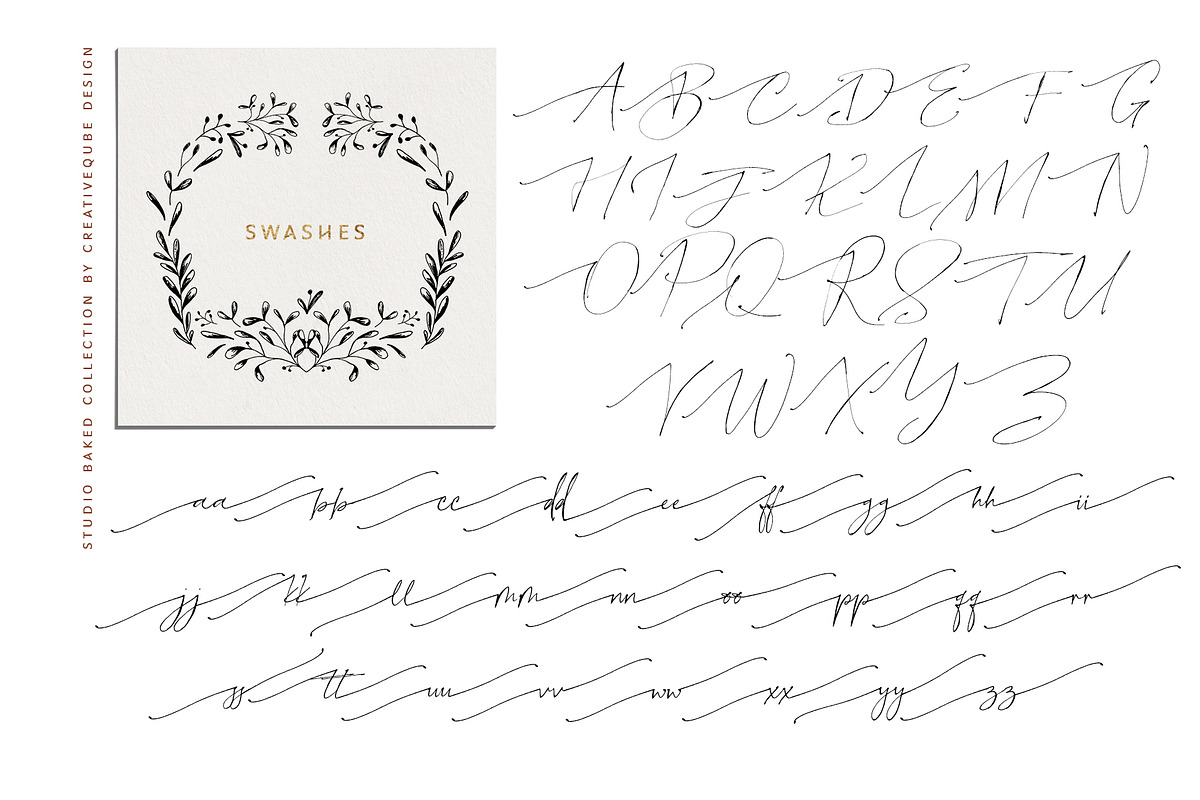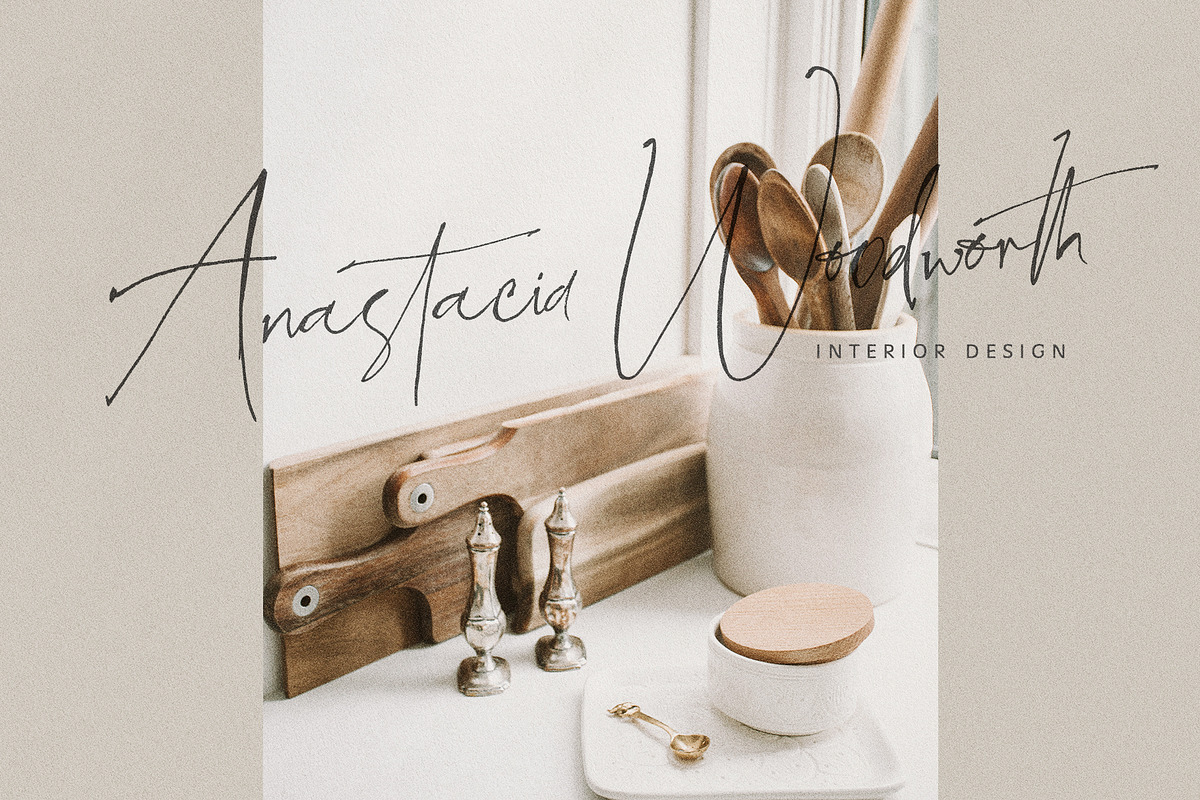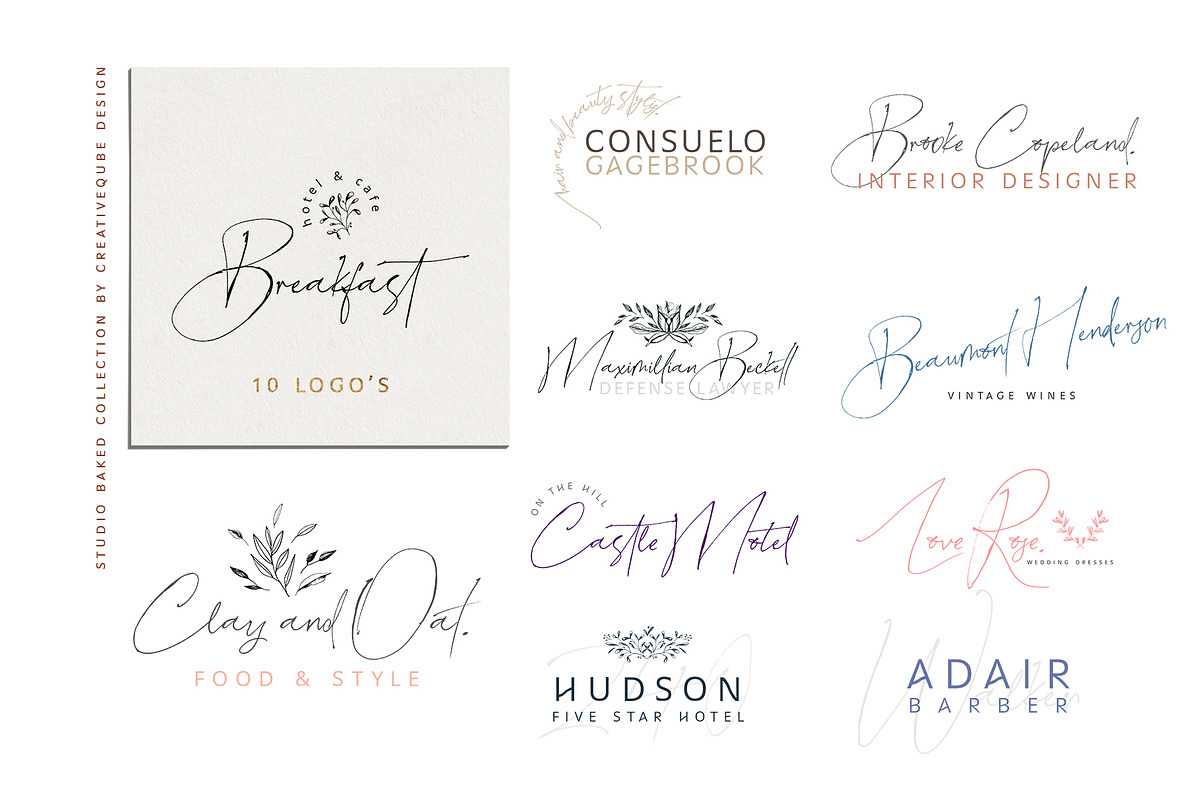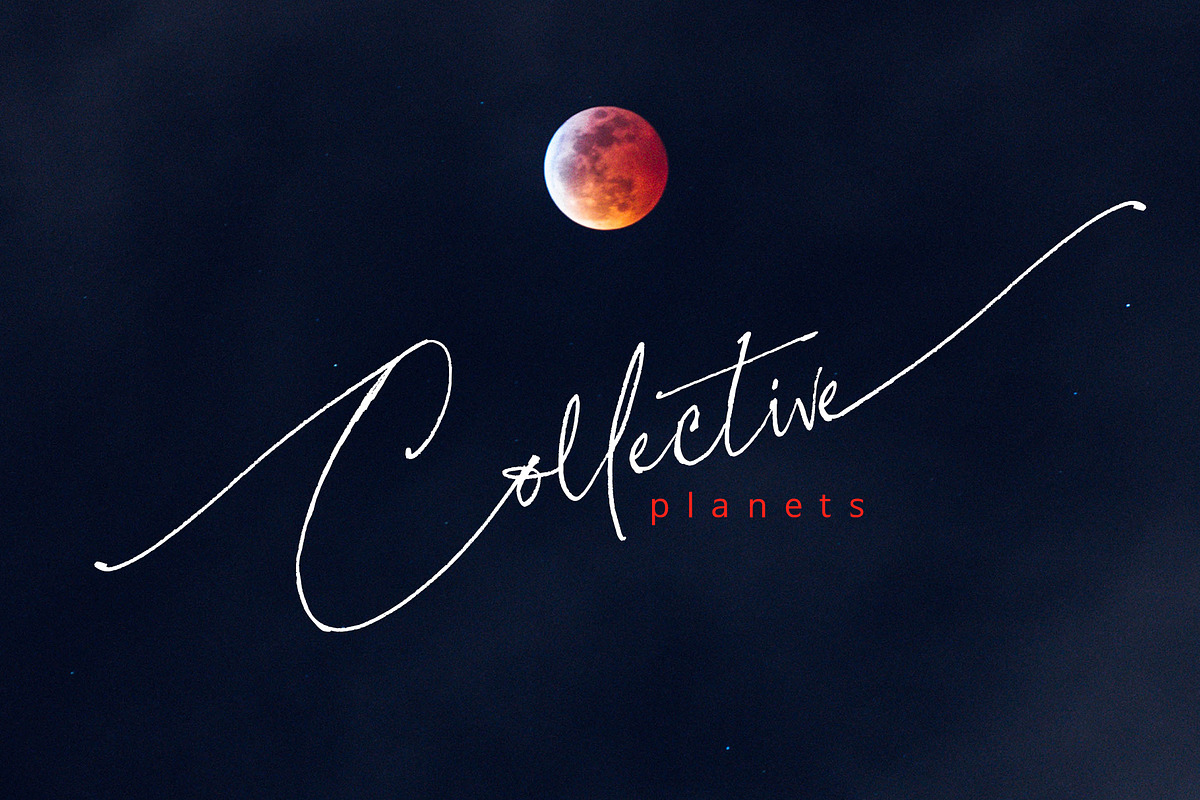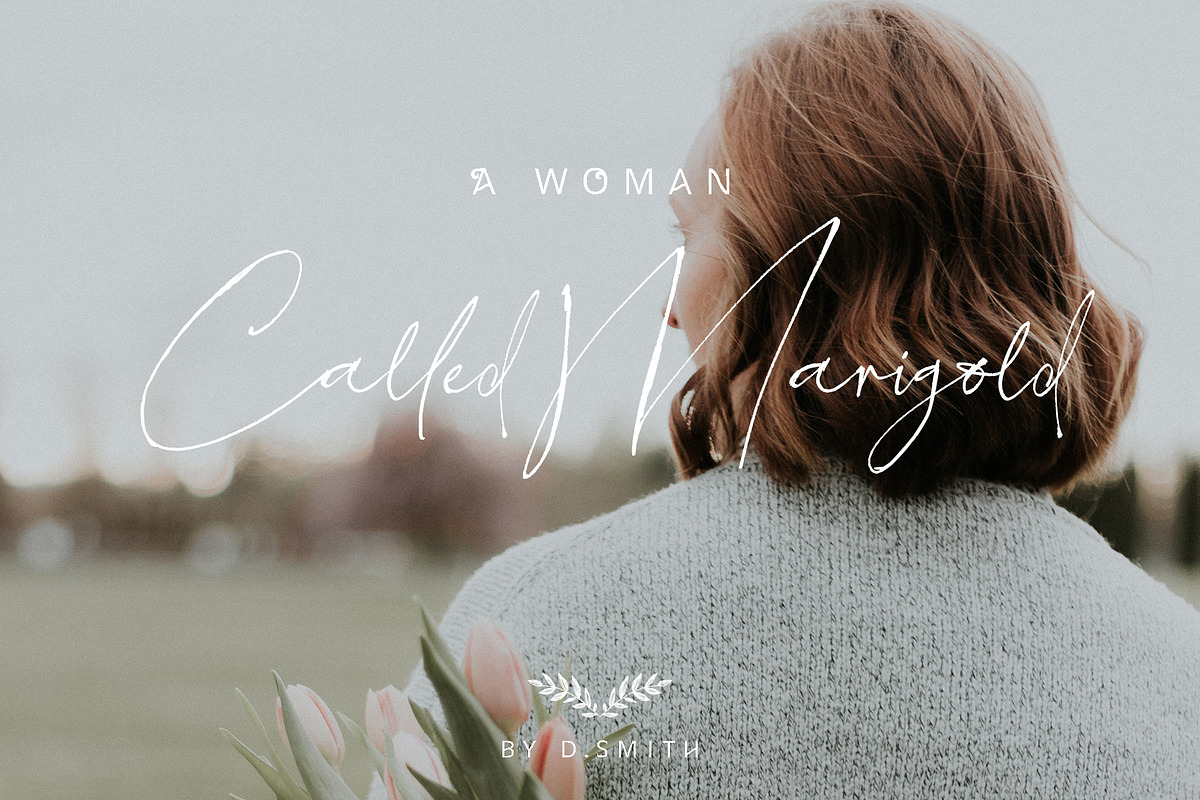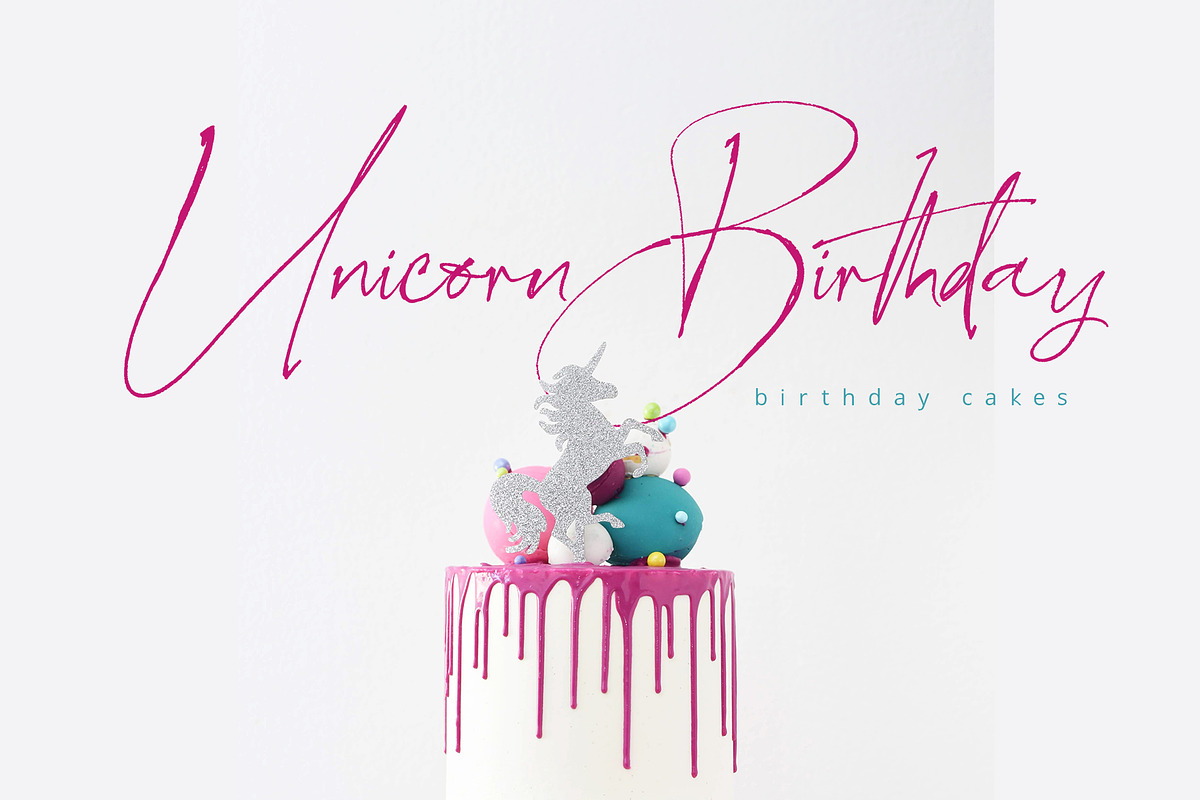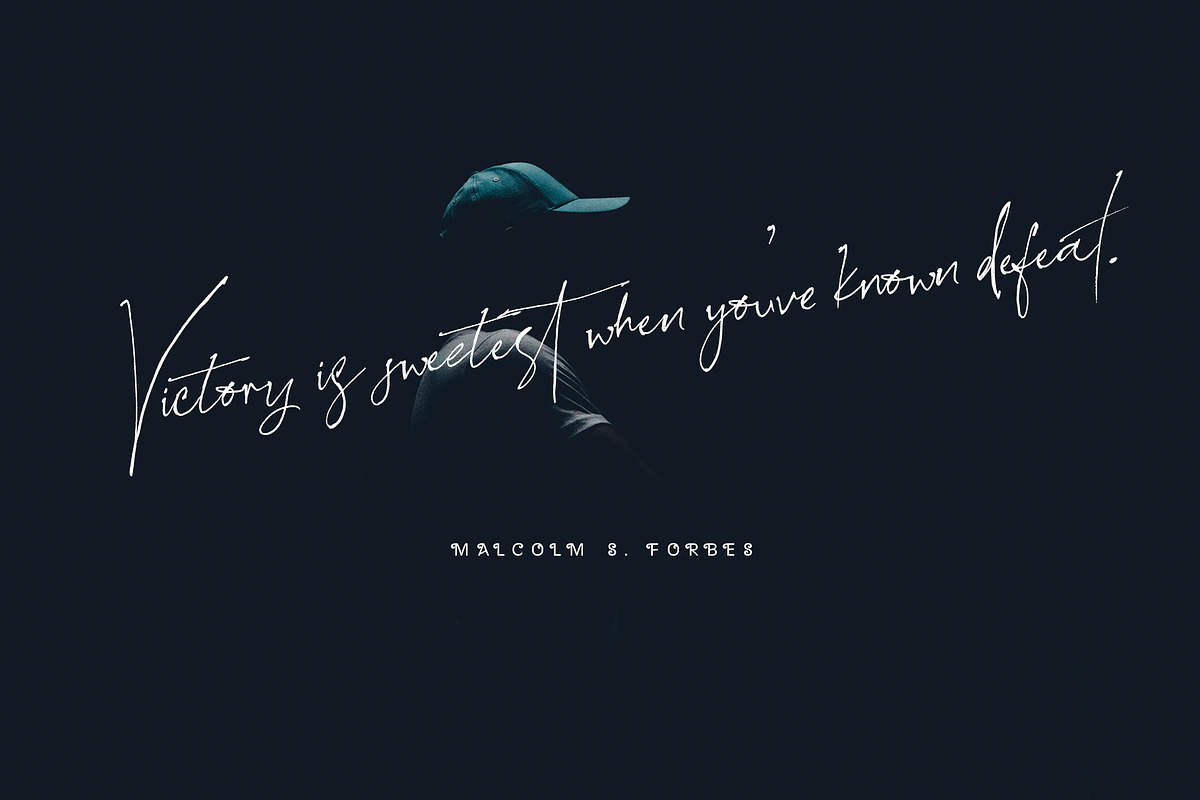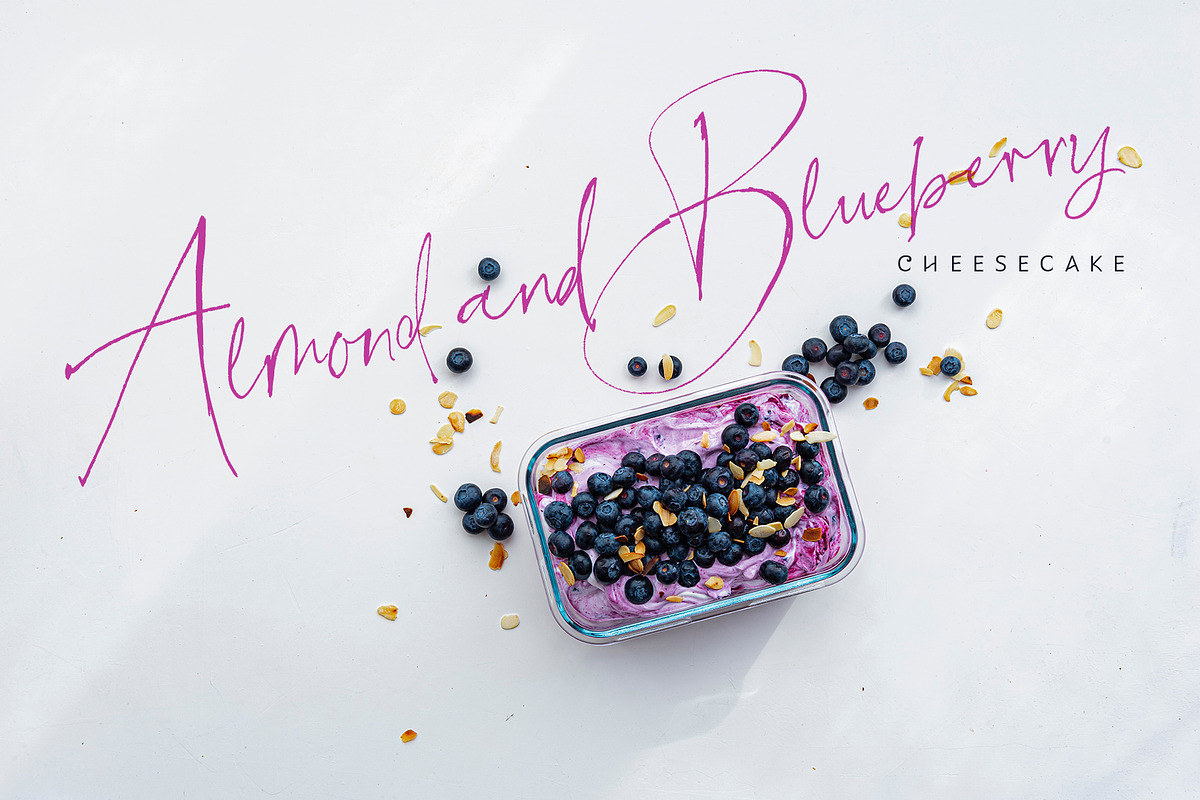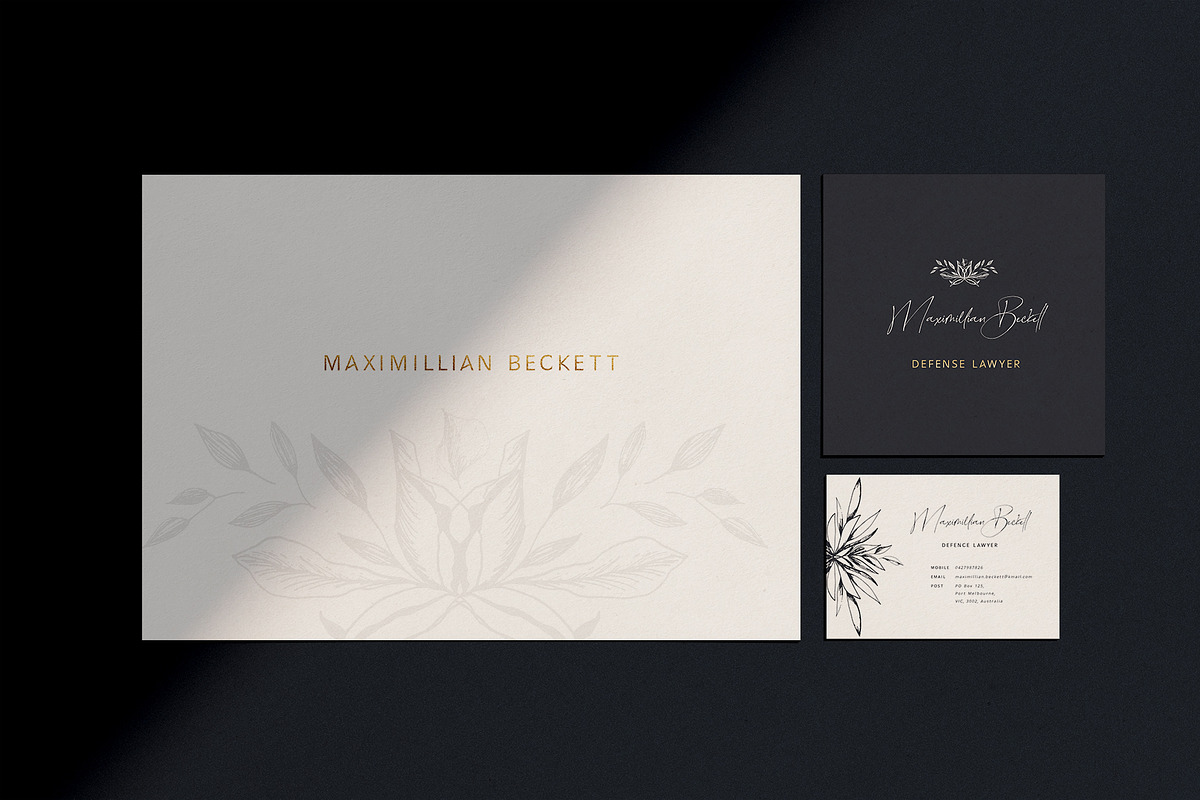
Studio Baked Font Collection
Studio Baked Collection is a gorgeous rustic hand written font duo that makes for stunning logos, quotes, wedding invites, blog posts, Instagram, and more!
They pair beautifully together in all kinds of applications. The sans looks gorgeous with tracking set at 250, as well as where it's normal setting at zero.
Studio Baked Script includes lots of ligatures to make everything look perfectly natural and hand written, and there is a full set of lowercase alternates for each letter as well. These are set as ending letters in the regular script font file, (activate the Contextual Alternates button in the Character Panel to see this) plus as the standard letters in the Alternates font file. And then there is the Swashes and swishes sets! These are in extra font files named Studio Baked Swashes and Studio Baked Swishes. There is left/beginning swashes for the uppercase and left/beggining and right/ending swashes for the lowercase.
Studio Baked Sans is a sans serif font that just goes so well with the script. It has an extra font file with scrolls on the uppercase letters to add a bit of unique personality.